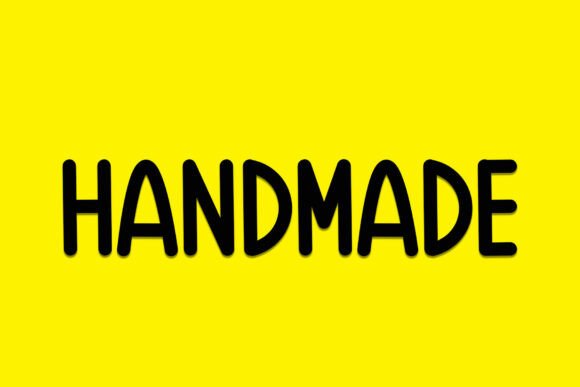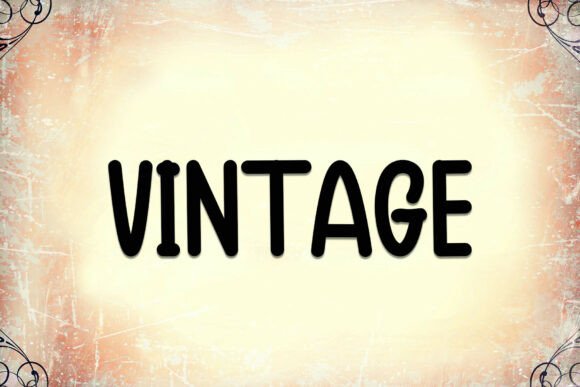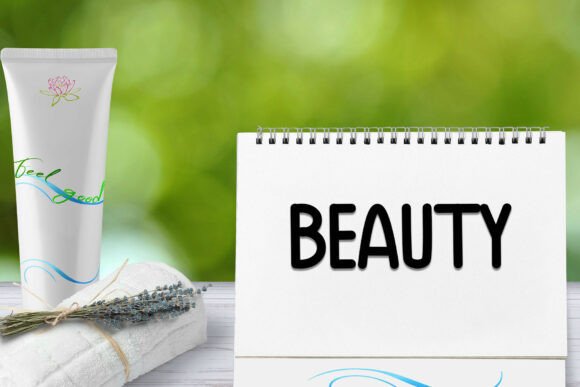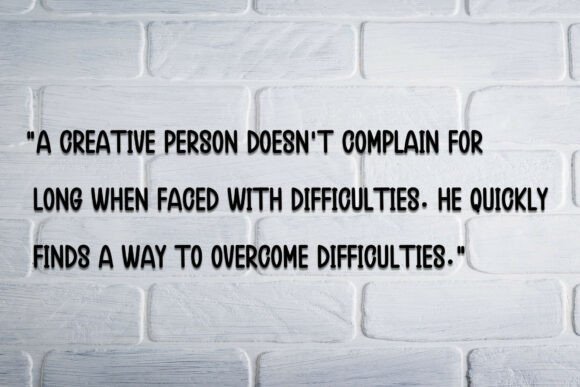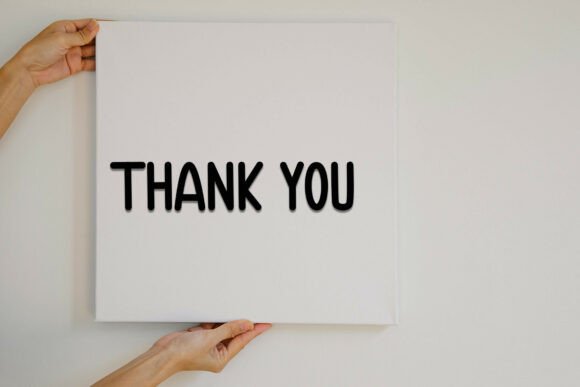
The Creamy Delight: A Handwritten Font that’s as Sweet as it Sounds
I’ll never forget the time I was working on a project for a client’s children’s party invitations. I had a clear vision of a fun, playful design, but I just couldn’t find the right font to bring it all together. That was until I stumbled upon Creamy, a simple yet charming handwritten font that instantly added a touch of warmth and friendliness to my design. In this article, I’ll share my love for Creamy, its features, and how you can make the most of it in your own creative projects.
An Honest Review of Creamy
What I Love About Creamy ✨
- ✅ Warm and inviting: Creamy has a bold, rounded style that immediately conveys a sense of coziness and approachability.
- ✅ Playful yet readable: The font’s smooth curves and playful strokes make it perfect for designs that need a cheerful vibe, without sacrificing readability.
- ✅ Versatile: Creamy works beautifully for both display purposes and creative decorative text, making it an excellent addition to any design project.
- ✅ Easy to pair: Creamy’s friendly style pairs well with a variety of fonts, allowing you to create stunning font combinations.
- ⚠️ Limited formal use: Due to its playful nature, Creamy might not be the best fit for formal or professional designs that require a more serious tone.
- ⚠️ Overuse can be overwhelming: As with any bold font, using Creamy excessively can be overwhelming. Balance is key to making the most of its charm.
- Experiment with Creamy’s OpenType features, such as stylistic alternates and glyphs, to add more personality to your text.
- Explore Creamy’s OpenType panel to access features like swashes and stylistic sets to enhance your design.
Creamy was designed with the intention of creating a font that feels like a warm hug. Its creator aimed to craft a handwritten font that would instantly add a touch of sweetness and charm to any design project. The result is a font that’s both playful and approachable, perfect for designs that need a cozy, cheerful vibe.
A: Creamy is perfect for a variety of projects, including logos, greeting cards, posters, children’s projects, branding, quotes, planners, stickers, Cricut/SVG crafts, packaging, and social media graphics.
A: No, Creamy is designed to be readable while still maintaining a playful and handwritten feel. Its smooth curves and clear letterforms make it easy on the eyes.